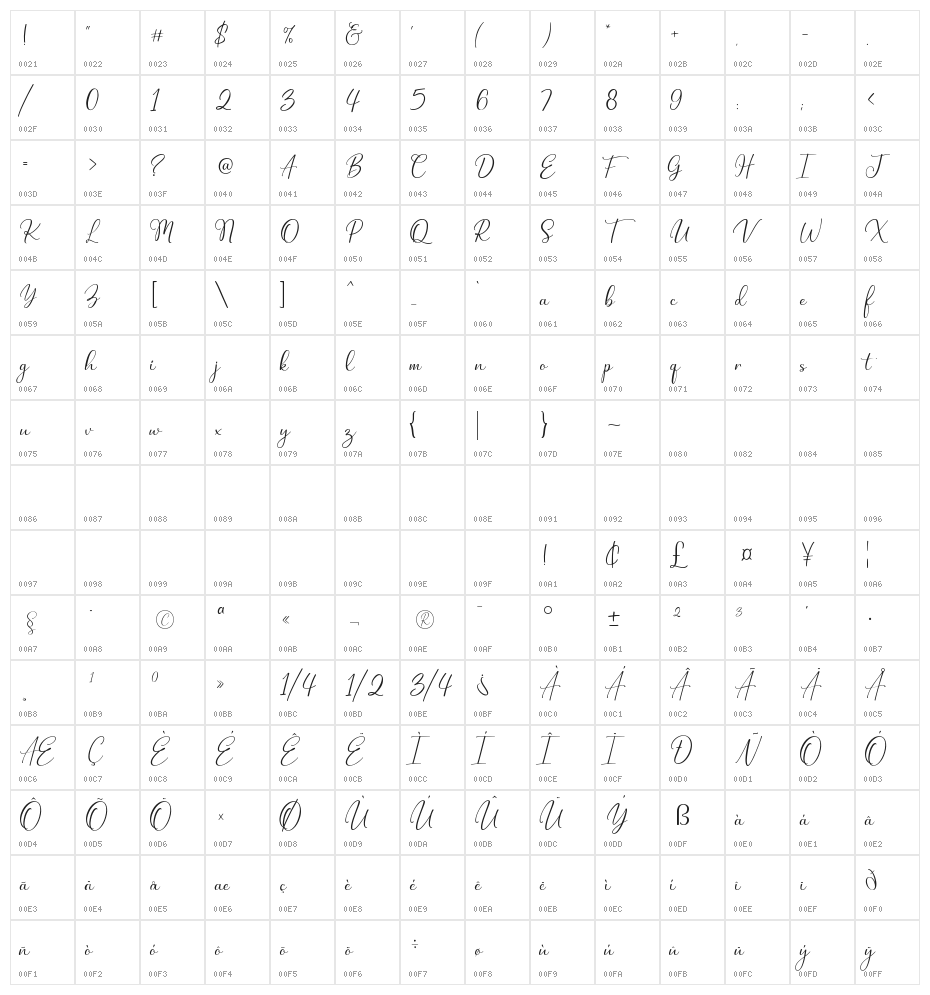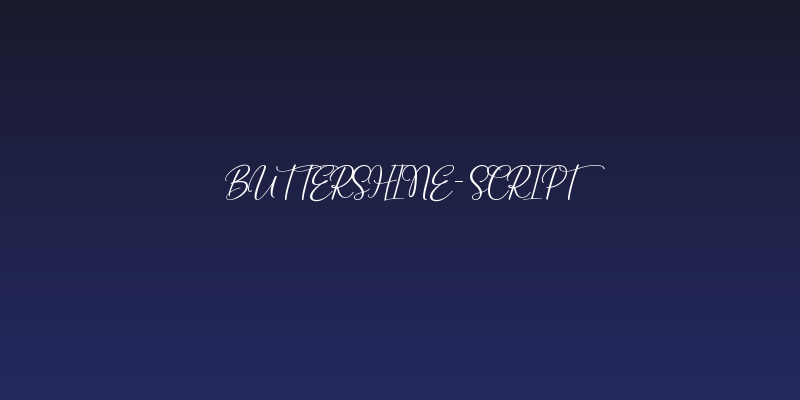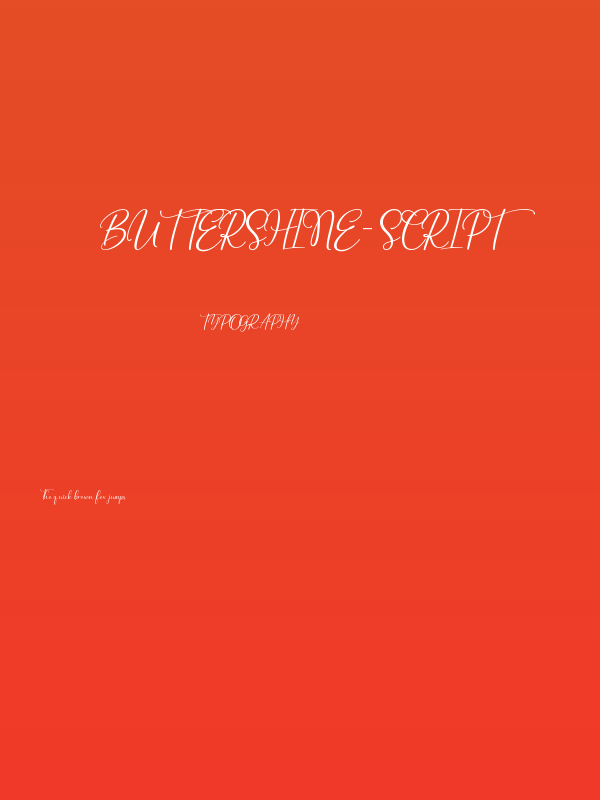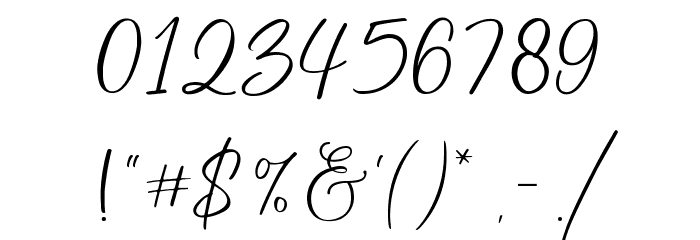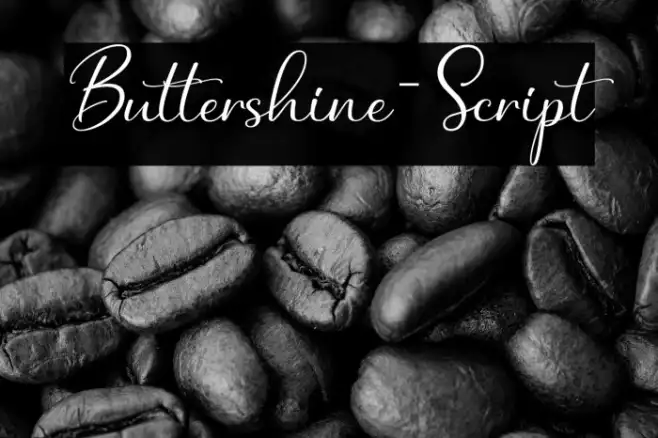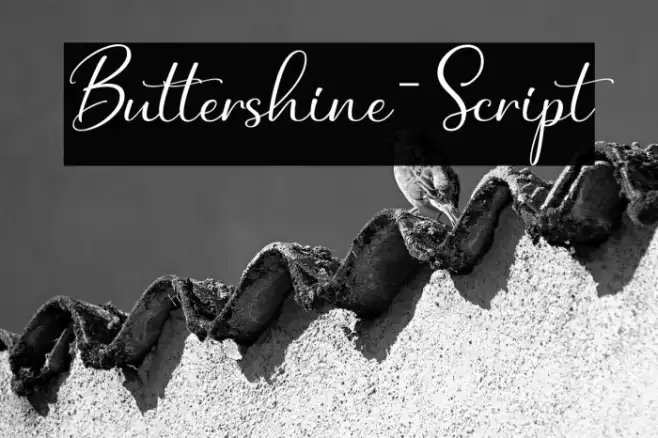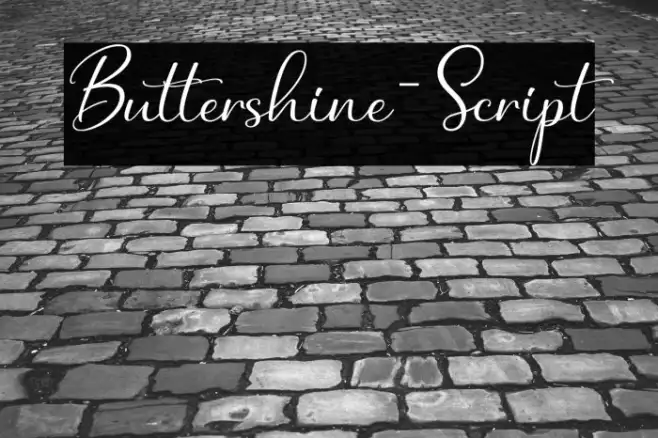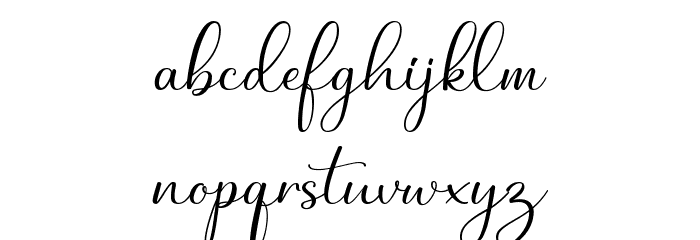
Buttershine-Script Font
Buttershine-Script Description
This elegant script font features flowing, cursive letterforms with a sophisticated and artistic flair. The uppercase letters are characterized by their tall, sweeping ascenders and descenders, creating a sense of movement and grace. The lowercase letters maintain a consistent style, with smooth connections and a slightly more compact form. The numerals are designed to complement the letters, with a similar fluidity and elegance. Special characters are included, maintaining the overall aesthetic. This font is perfect for projects that require a touch of elegance and sophistication.